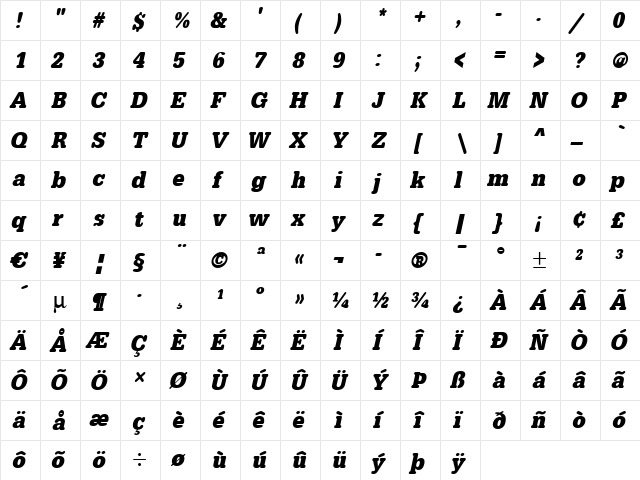
AstridBeckerNarrow Bold Italic Font Preview
Design Context for AstridBeckerNarrow Typeface
AstridBeckerNarrow offers clean, dependable letterforms without strong stylistic allegiance, making it a practical choice for designers who need flexibility. The dynamic lean of this cut emphasises speed and emphasis in any layout. The heavy weight commands attention and anchors typographic hierarchies. The condensed width makes it efficient for tight spaces without sacrificing legibility.
Pro Tip: Try AstridBeckerNarrow for annotation and caption copy alongside an upright companion — the contrast in angle creates a dynamic but ordered typographic system.